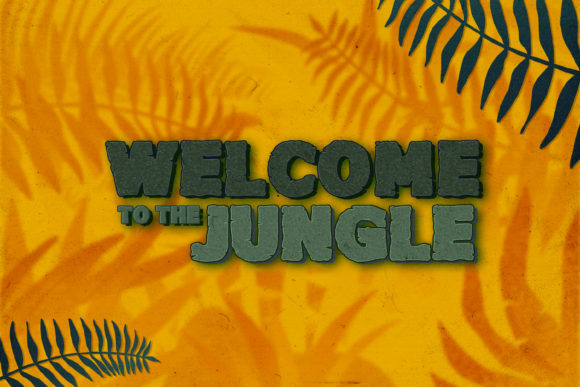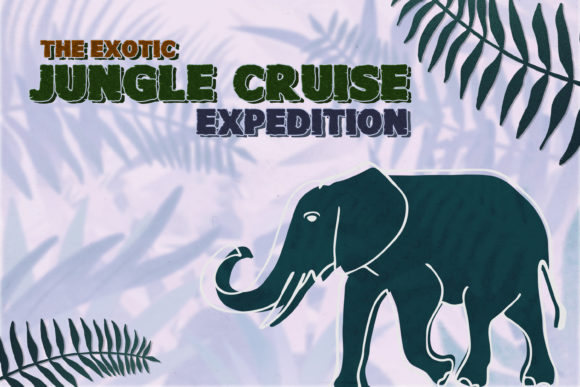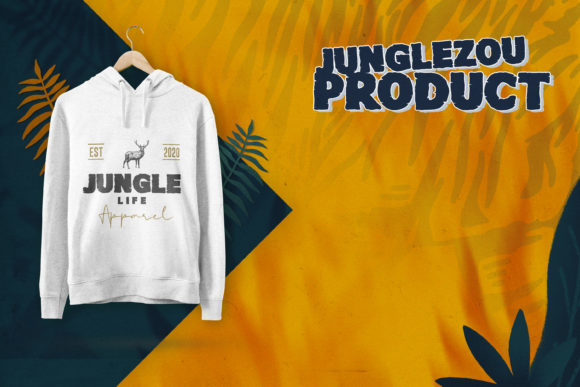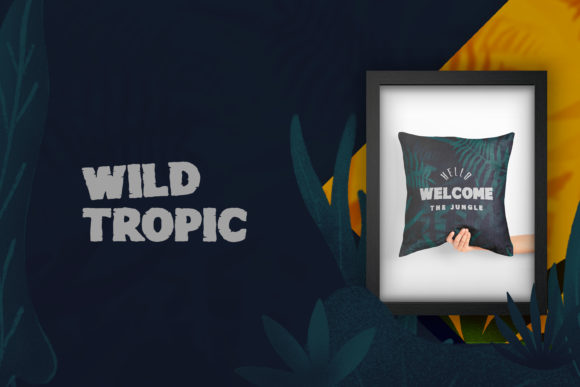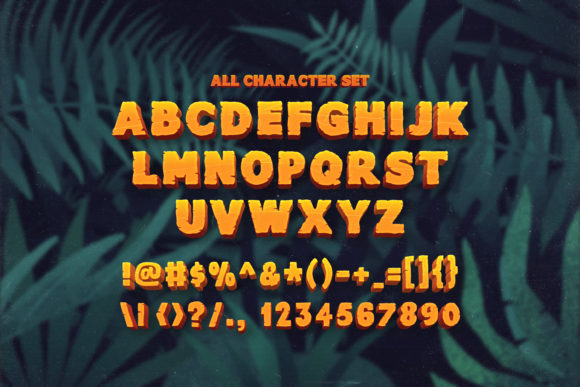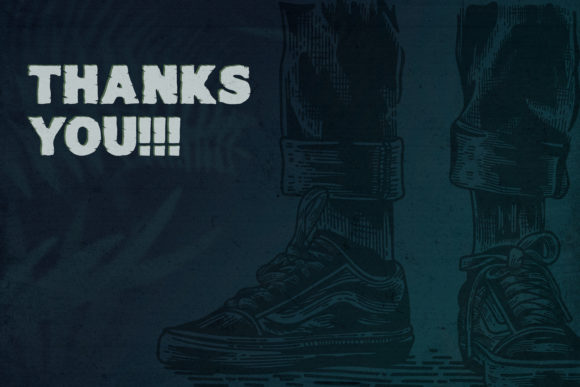
Introduction to Junglezou Font Font
Fonts play a crucial role in design, and the Junglezou Font font is a typeface that brings both character and versatility to any project. Whether you’re working on a branding project, a website, or a print design, the Junglezou Font font offers a unique style that can elevate your work.
Junglezou embodies fun, quirkiness and authenticity.
This enchanting sans serif font will turn any creative idea into a true standout .
Key Features of Junglezou Font Font
Why Choose Junglezou Font Font?
The Junglezou Font font is more than just a typeface – it’s a design tool that helps you communicate your message with style and clarity. Its unique character set and versatile design make it suitable for a wide range of applications, from elegant invitations to bold headlines.
With its carefully crafted letterforms and balanced proportions, the Junglezou Font font ensures readability and visual appeal across all mediums.
What makes Junglezou Font font special?
The Junglezou Font font stands out with its unique design, exceptional readability, and versatility across various design applications.